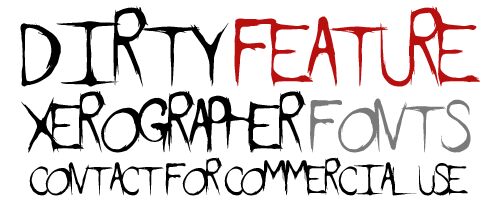
Dirty Feature from Xerographer Fonts is a free horror display font with tall, distorted capitals and an aggressively uneven silhouette. The strokes lurch between broad masses and hairline scratches, ending in sharp splinters that resemble torn paper or dry thorns. Rounded letters are squeezed and misshapen, which keeps the alphabet raw rather than theatrical.
Slasher cinema makes a strong setting for posters and title cards. The scratched, hostile lettering turns a brand name into a rough-edged product mark across grim album covers, seasonal haunted attraction graphics, and small-run horror merchandise packaging.